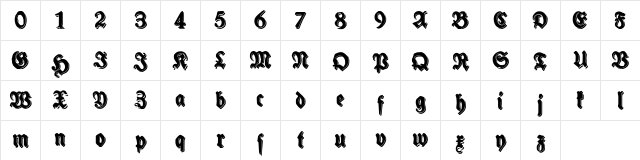
Complete Schneidler Halb Fette Shadow Regular glyph index. Displaying only characters natively supported by Schneidler Halb Fette Shadow Regular font.
Schneidler Halb Fette Shadow is built around its visual character rather than neutral utility - its distinctive forms are designed to make an impression at display sizes.
Font Pairing: Pair with a clean neutral sans-serif for body copy to let Schneidler Halb Fette Shadow's character lead without overwhelming the composition.
Pro Tip: Use Schneidler Halb Fette Shadow exclusively at display sizes - it was designed to be seen, not read at length. Let a neutral companion handle body copy.